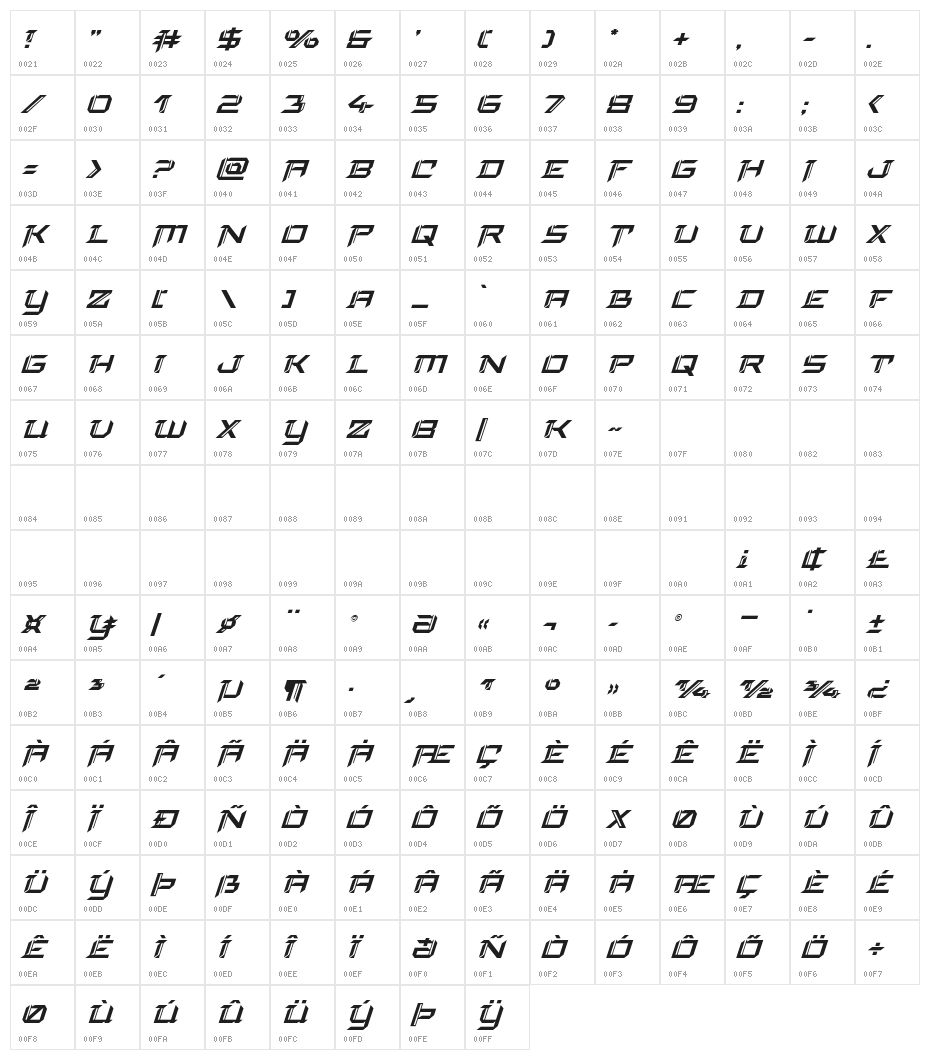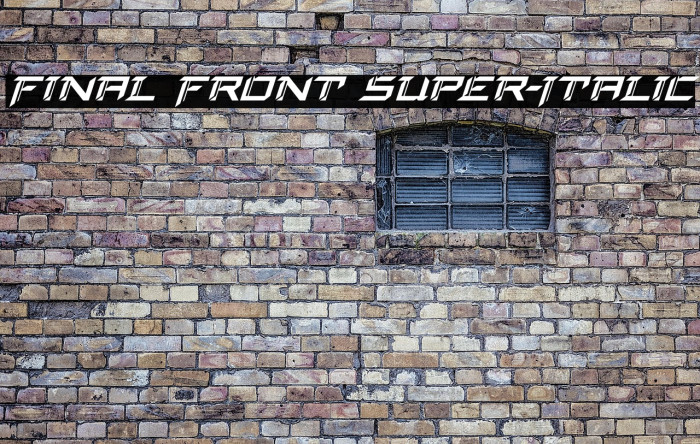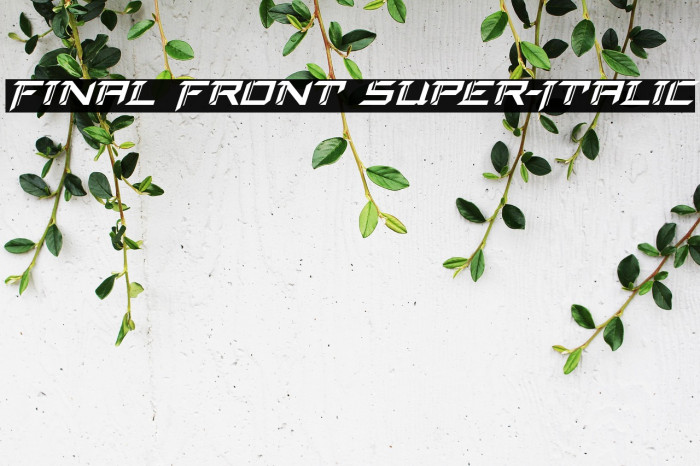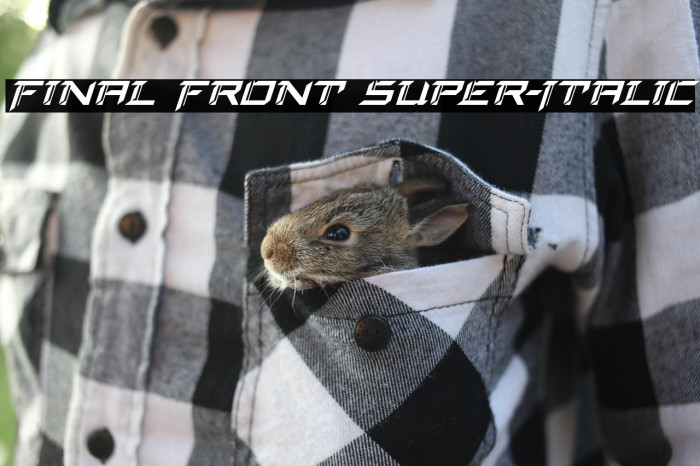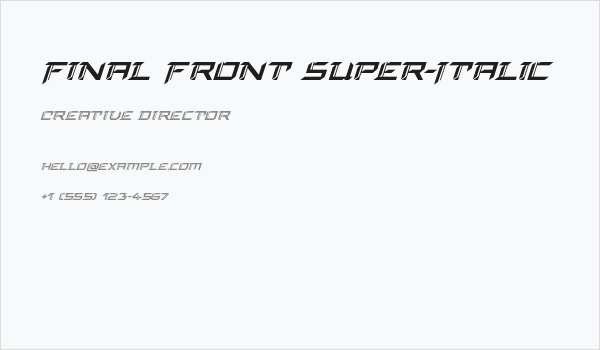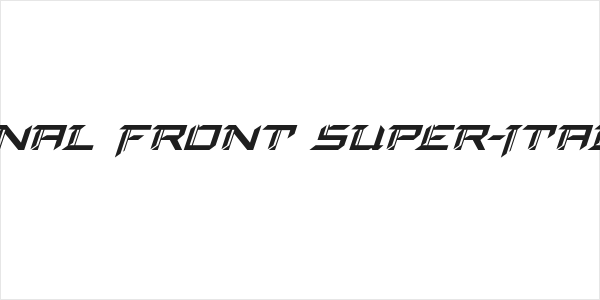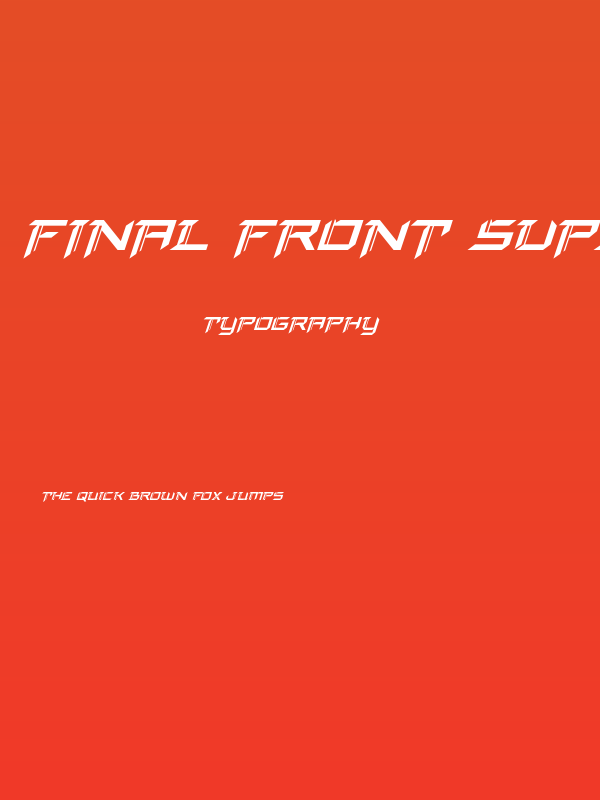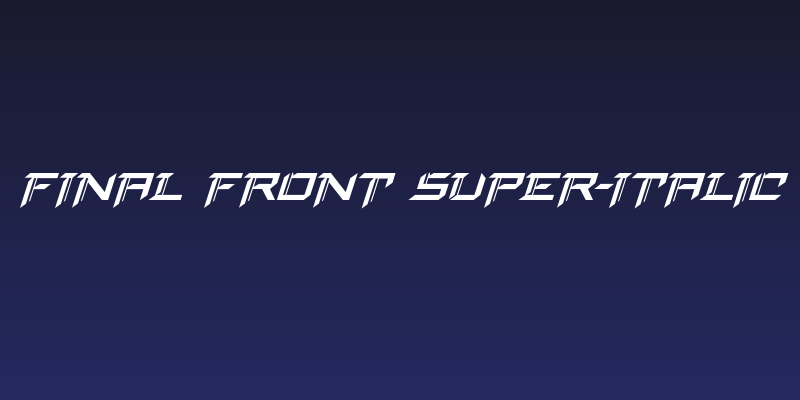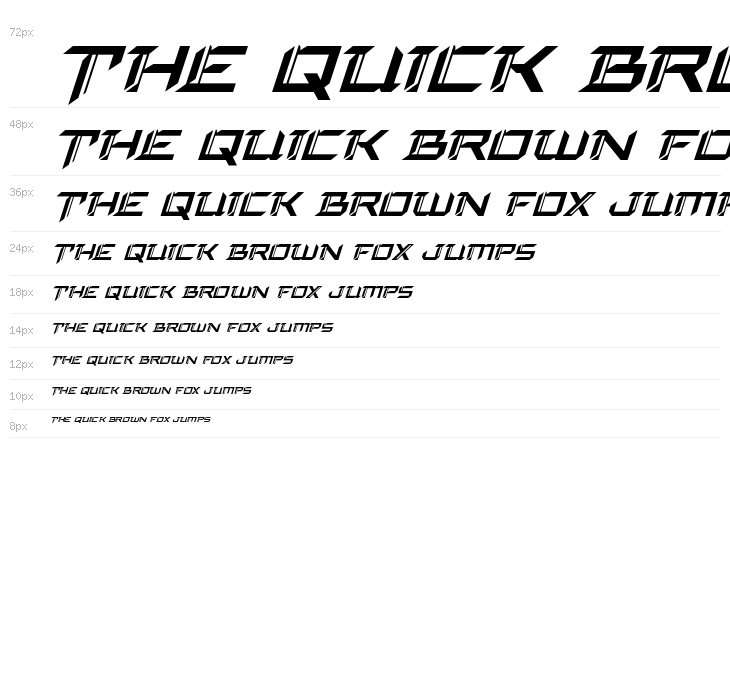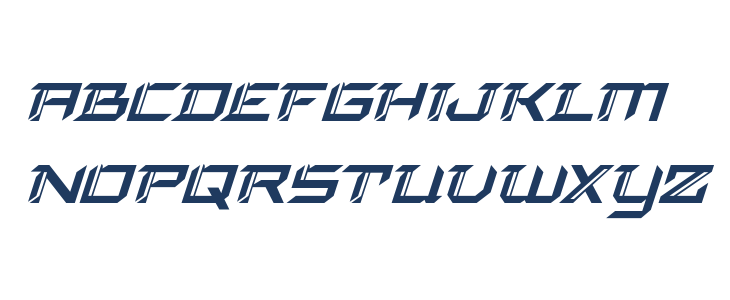
Final Front Super-Italic Font
Final Front Super-Italic Description
This font features a dynamic and angular design, characterized by sharp edges and a forward-leaning italic style. The letters are bold and striking, with a futuristic and aggressive appearance. The uppercase and lowercase letters maintain a consistent style, emphasizing speed and motion. Numbers and special characters follow the same aesthetic, making the font suitable for attention-grabbing designs. The overall look is modern and edgy, ideal for projects that require a strong visual impact.
| Proposed Projects | Ideal for sports branding, video game titles, automotive advertisements, and dynamic posters. |